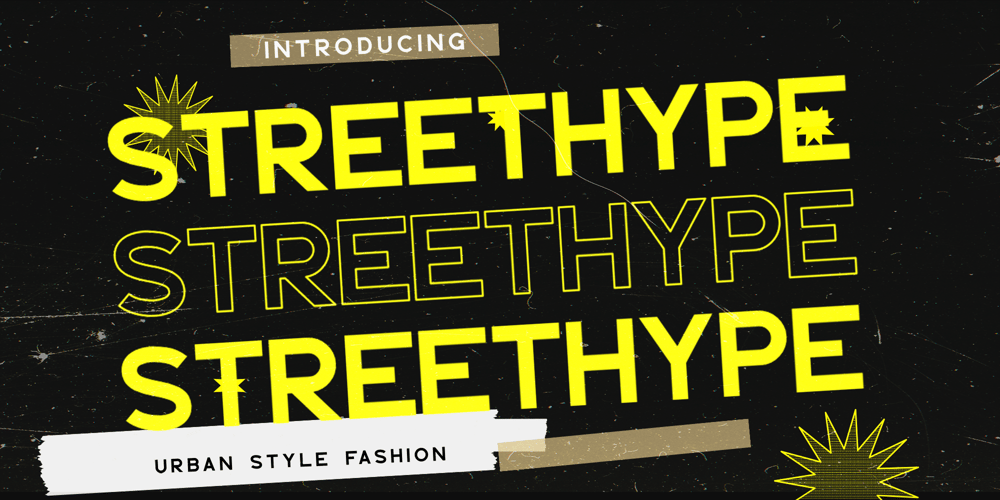
Streethype Font Family was designed by Hunaiza Aljahsy and published by HunaizaAljahsy. Streethype contains 2 styles and family package options. StreetHyPE is a serif font crafted very carefully, StreetHyPE is perfect use for a logo for branding, typography design, badge design, product packaging, invitation, quotes, t-shirt design, label poster, special events and anything that need vintage taste.It came with number & punctuation, stylistic alternate, multilingual support, and PUA encode.Hope you like this produc